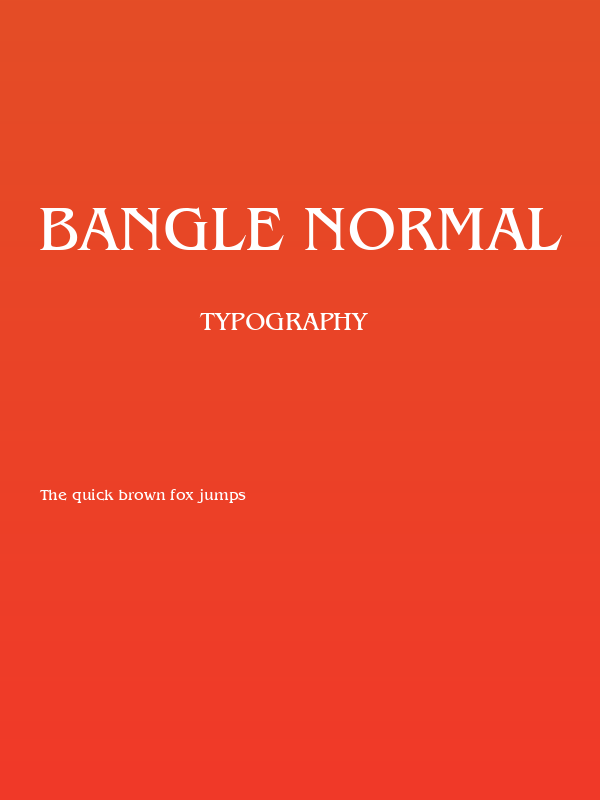
Bangle Normal Font
Bangle Normal Description
This typeface features a classic serif design with a modern twist. The characters exhibit a balanced structure with slightly flared serifs, giving it a timeless yet contemporary appearance. The uppercase letters are bold and commanding, while the lowercase letters maintain a smooth and elegant flow. The numerals are clear and distinct, ensuring readability. Special characters are well-integrated, maintaining the overall aesthetic of the font. The design is versatile, suitable for both digital and print media, and can be used to convey a sense of tradition and reliability.
| Overall Style | Classic |
| Use Case | Headlines, Body text, Logos |
| Proposed Projects | Ideal for editorial design, book covers, branding projects, and formal invitations. |